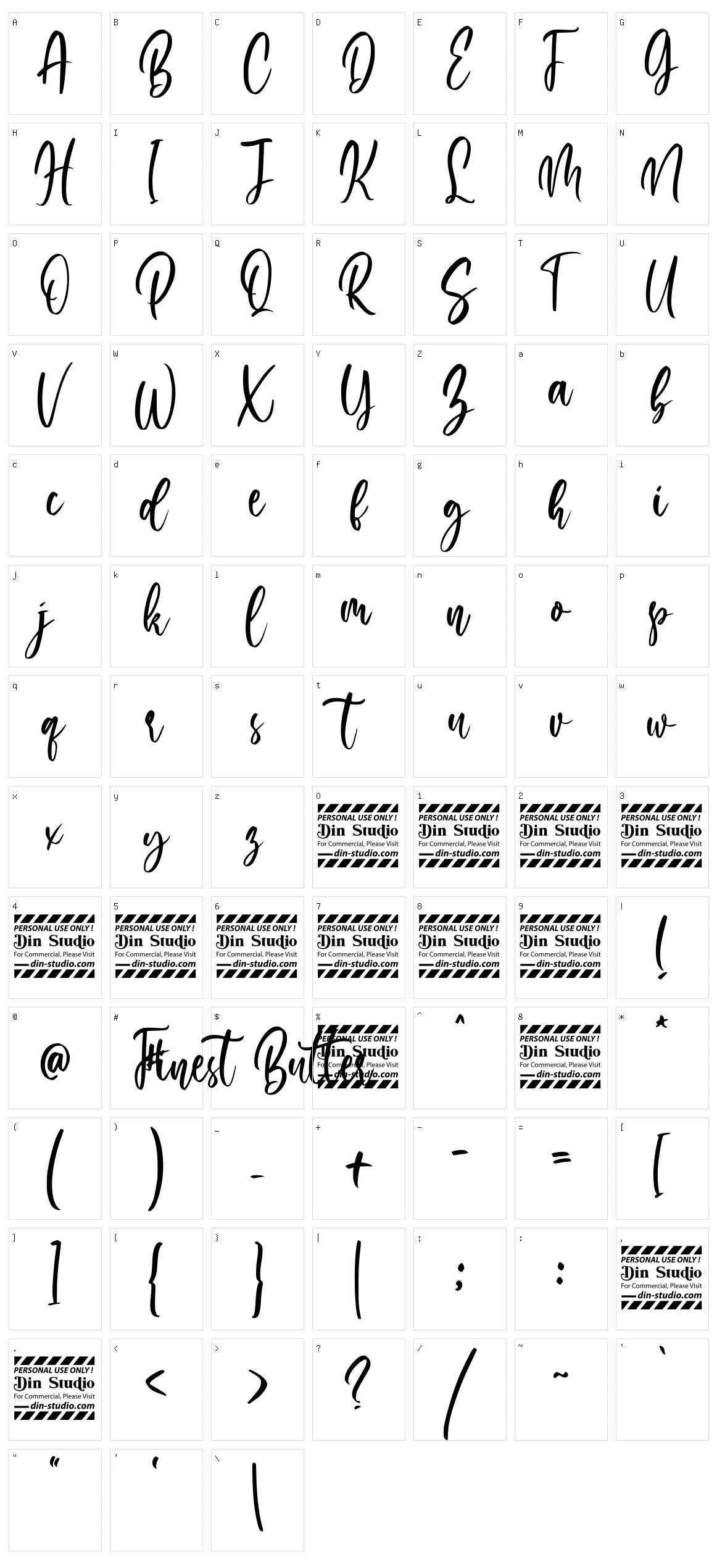
The free font Finest Butter is carefully designed by Din Studio, showcasing a thoughtful balance of creativity and usability and falls under the Script font style. When you download the ZIP file, it contains only 911.96 KB of font files, making it lightweight and quick to download. Please review the license details below to understand permitted usage and distribution rights. If license information is not available, we recommend using this font for personal projects only or contacting the author directly for commercial usage permissions.